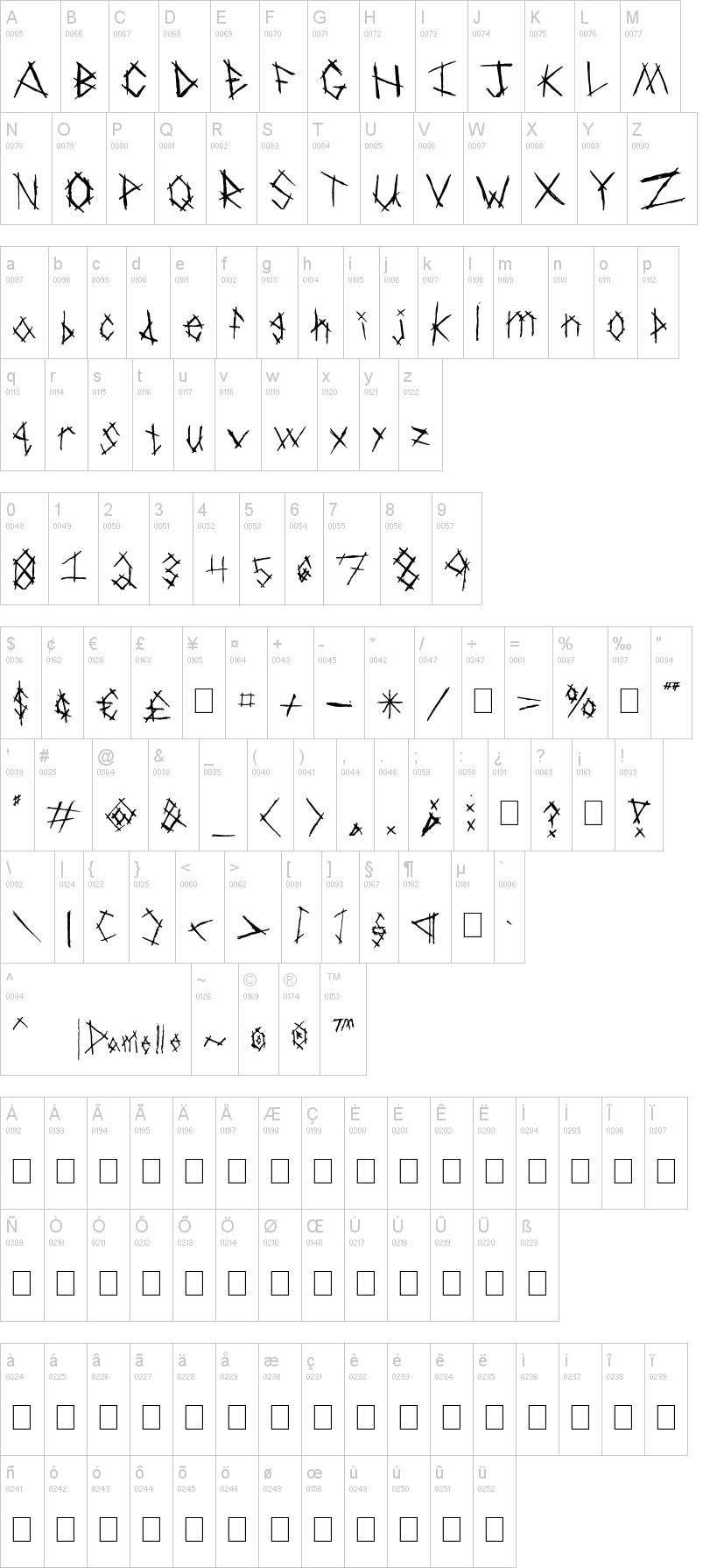
Note of the authorMy friends told my my handwriting was cool and begged me to upload it here so..
I hope you enjoy my handwriting. XD
(Edit: Thanks for the downloads! Btw I apologize for the messed up ^ symbol... I didn't mean to DX)